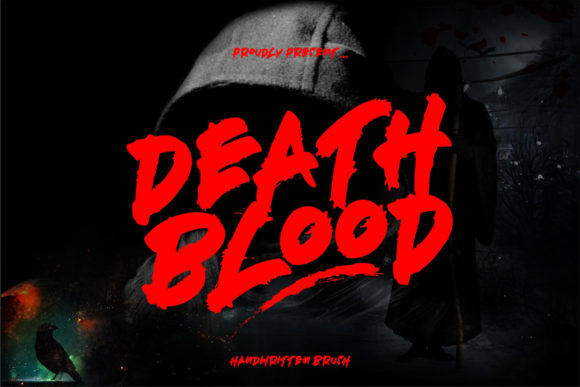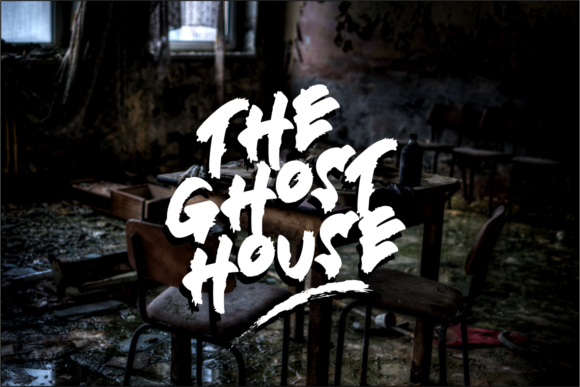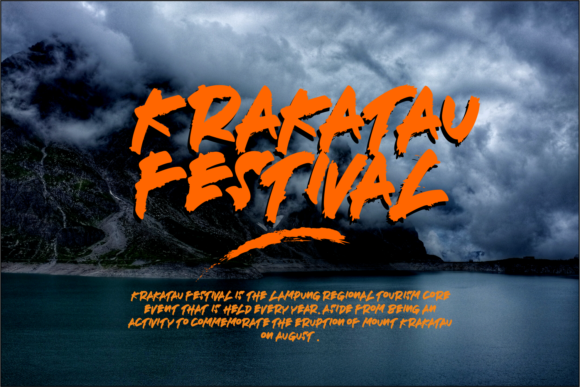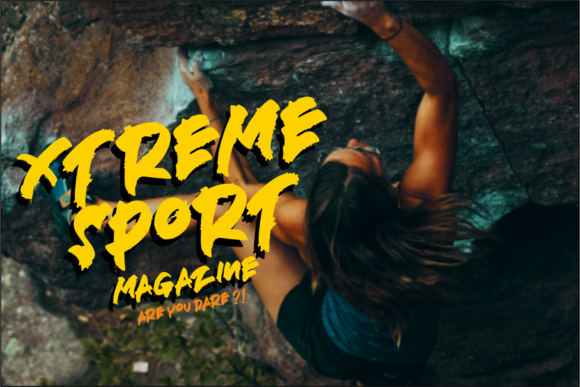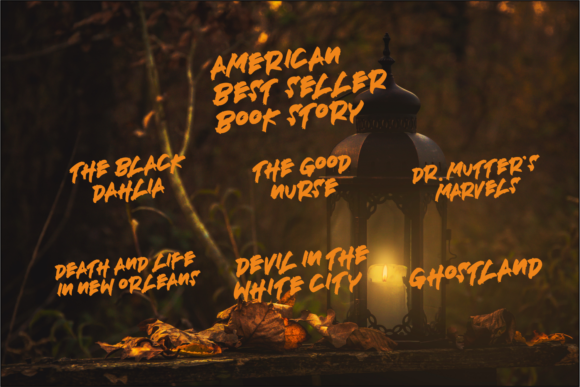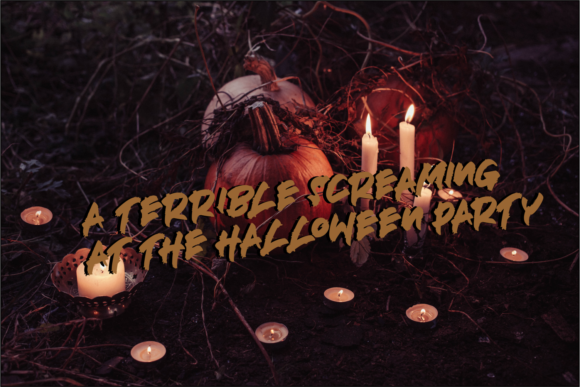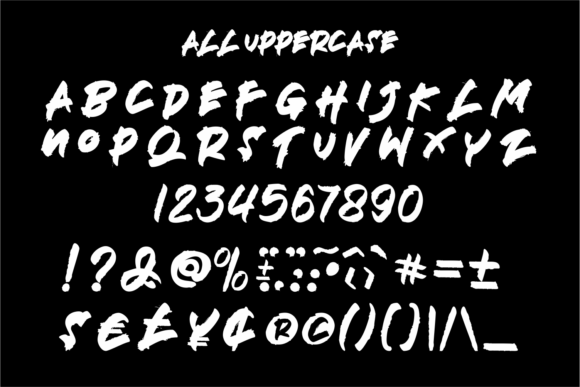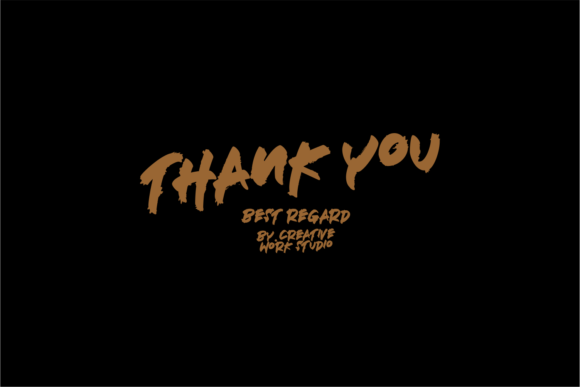
Deathblood Font
About Deathblood Font
Deathblood is a violent, powerful and rough handwritten font with bold splatters. It’s the perfect font for any horror or thriller design.